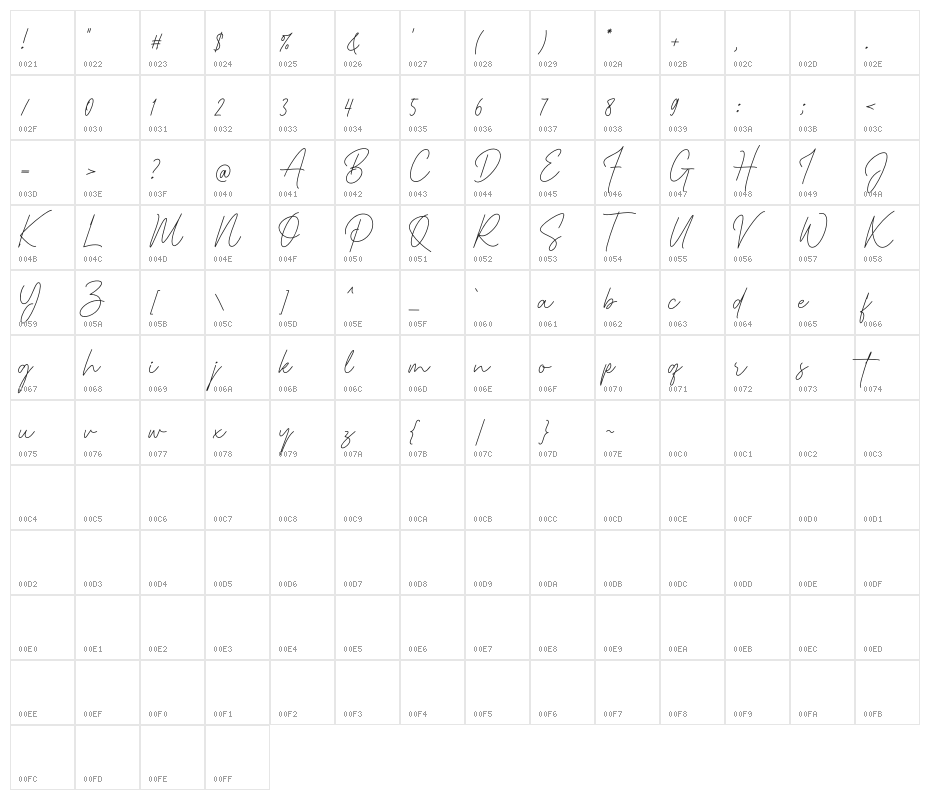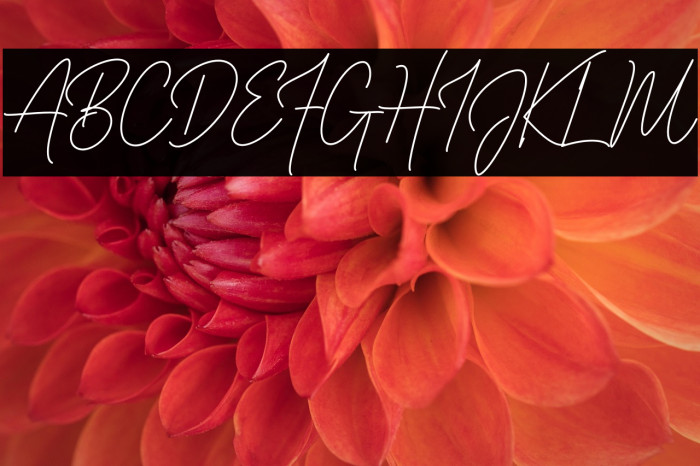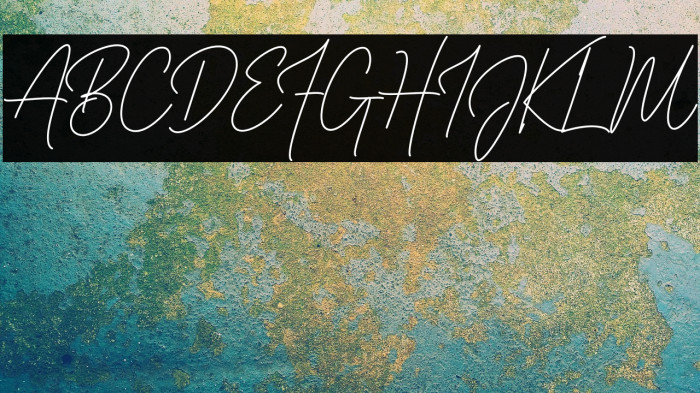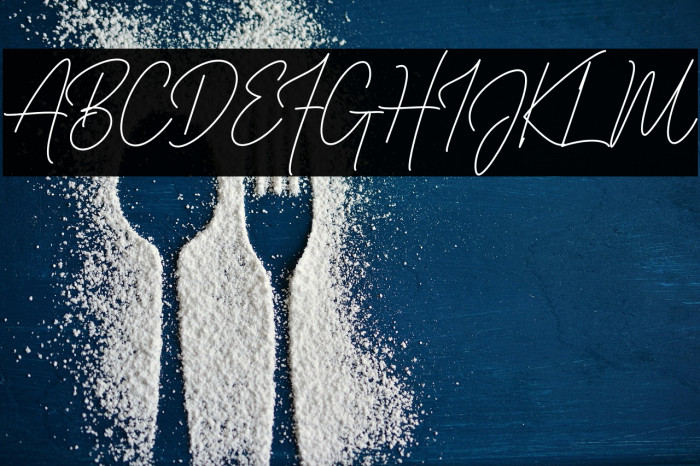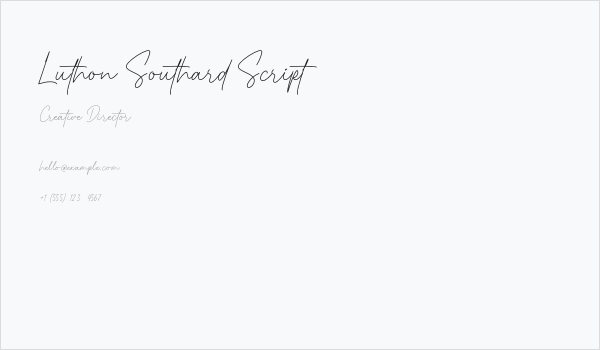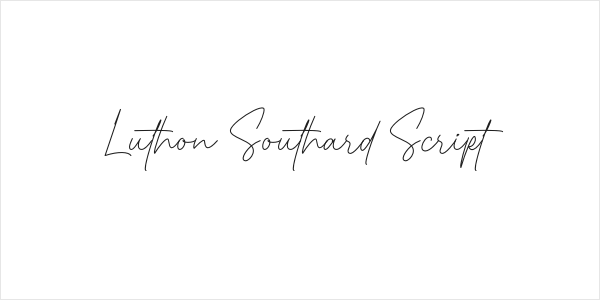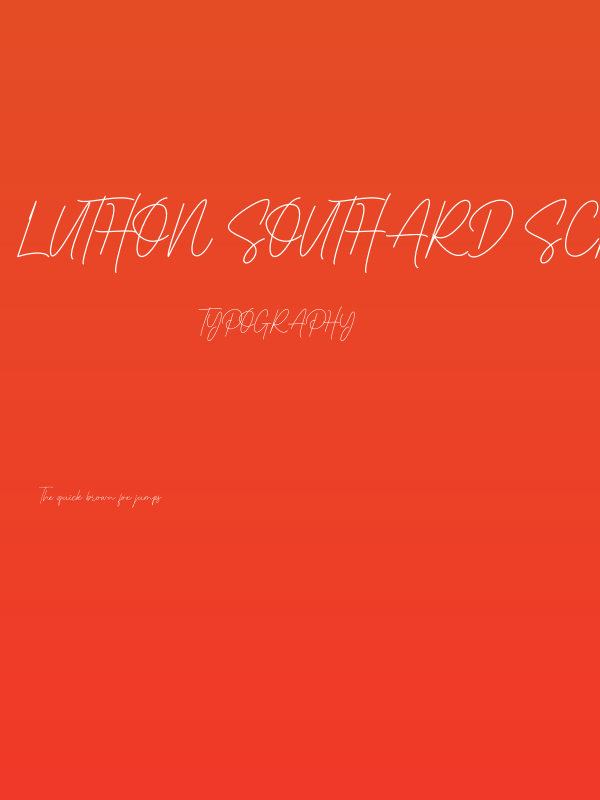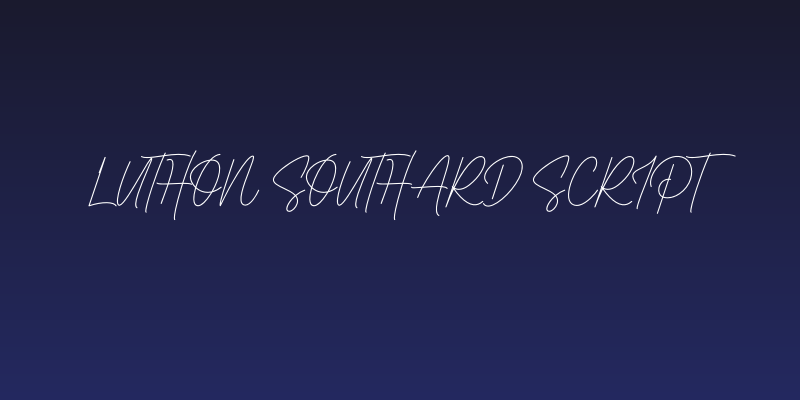
Luthon Southard Script Font
Luthon Southard Script Description
This elegant script font features a flowing, handwritten style with a natural and organic feel. The letters are connected, creating a seamless and fluid appearance that mimics the look of cursive handwriting. The strokes are thin and delicate, giving the font a light and airy quality. The uppercase letters are slightly larger and more ornate, while the lowercase letters maintain a consistent and graceful form. The numbers and special characters are designed to match the overall aesthetic, ensuring a cohesive look across all text elements. This font is perfect for adding a personal and sophisticated touch to any design project.
| Overall Style | Elegant, Handwritten |
| Proposed Projects | Ideal for wedding invitations, greeting cards, logos, and branding materials that require a personal and elegant touch. |